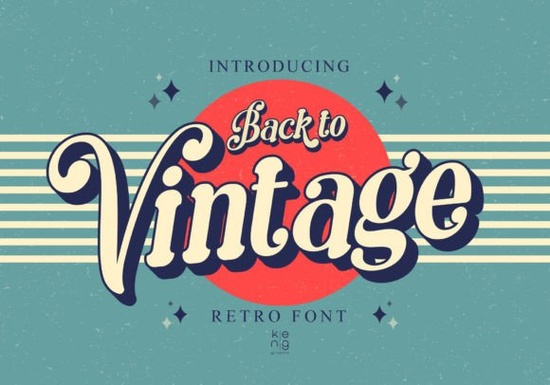
For designers looking to add a nostalgic touch, Back to Vintage Font offers a distinct look with its soft, rounded corners. This vintage-style retro font draws inspiration from the typography of the 60s, 70s, and 80s. Whether you're working on a poster, a social media graphic, or a product label, this display font instantly grabs attention and creates a warm, familiar feel. Its unique shape where every corner is softer sets it apart from sharper retro alternatives, making it a solid choice for projects that need a gentle, approachable vintage vibe.
Why choose a rounded retro font for your projects?
Rounded fonts feel friendlier and more accessible than sharp, angular ones. When applied to a vintage aesthetic, soft curves help evoke the playful, optimistic spirit of mid-century design. Back to Vintage Font captures that mood perfectly. Its letters are neither purely geometric nor overly decorative they strike a balance that works for both digital and print media. If you've tried other retro fonts and found them too harsh or stylized, this one might be the missing piece for your toolkit.
- Versatility – Works well for headlines, logotypes, badges, and packaging.
- Readability – Even with its retro flair, each character remains clear at larger sizes.
- Emotional appeal – Soft forms create a sense of nostalgia without feeling dated.
How does Back to Vintage compare to other vintage fonts?
Plenty of display fonts claim to be “retro,” but few manage to combine rounded curves with authentic 60s–80s lettering structure. Back to Vintage Font does that naturally. It leans more toward the hand-drawn signages and printed ads of that era, rather than strict modern geometric fonts. For a different take on retro lettering, you can explore Hunters K Pop Font if you're after a bolder, more contemporary K-pop inspired style. Or, if you prefer a sharper vintage feel, Retro Holly Font offers a clean, classic Hollywood look. Each font has its own personality, but Back to Vintage stands out for its softness and warmth.
What kind of designs work best with this font?
Because of its rounded, nostalgic shape, Back to Vintage Font excels in projects where you want to convey comfort, simplicity, and a bit of charm. Consider using it for:
- Branding for small businesses – Coffee shops, bakeries, vintage clothing stores, or artisanal product lines.
- Print-on-demand merchandise – T‑shirts, mugs, tote bags with retro slogans or quotes.
- Social media graphics – Instagram posts or stories that need a throwback aesthetic.
- Packaging and labels – Food, candles, or beauty products that want a handmade, nostalgic feel.
- Event posters – Concert flyers, festival banners, or birthday invitations with a 70s theme.
- Use it at larger sizes – This is a display font, so avoid using it in long body text. It shines in headlines, titles, and short phrases.
- Adjust spacing – Because the corners are rounded, a little extra letter spacing can improve readability, especially in all-caps settings.
- Pair with a neutral sans-serif – A simple sans-serif font like Helvetica or Inter for supporting text keeps the focus on the retro display font.
- Test on different backgrounds – The rounded shapes stand out well on both light and dark backgrounds, but try a subtle texture (like a paper grain) to enhance the vintage feel.
- ☐ Use Back to Vintage Font for your main headline or logo.
- ☐ Pair it with a clean, simple background (solid or subtle texture).
- ☐ Avoid using too many different retro fonts in one design stick to one or two.
- ☐ Test letter spacing to ensure rounded corners don't feel cramped.
- ☐ Consider alternative retro fonts like Retro Holly or Thick Honey Duo for variety in future projects.
When pairing this font with other design elements, keep the layout simple. A solid background color (like mustard, teal, or muted orange) lets the letters shine. Avoid overwhelming the design with multiple competing fonts one or two are enough. If you need a second font that complements the rounded style, Thick Honey Duo Font brings a chunky, friendly weight that pairs naturally.
How to get the best results with this display font
Here are a few practical tips from experienced designers:
If you're after even more retro variety, Lucky Chunks Font offers a playful, chunkier alternative that works for casual posters and sticker designs. Each font in this family brings its own mood, so you can mix and match depending on the project.